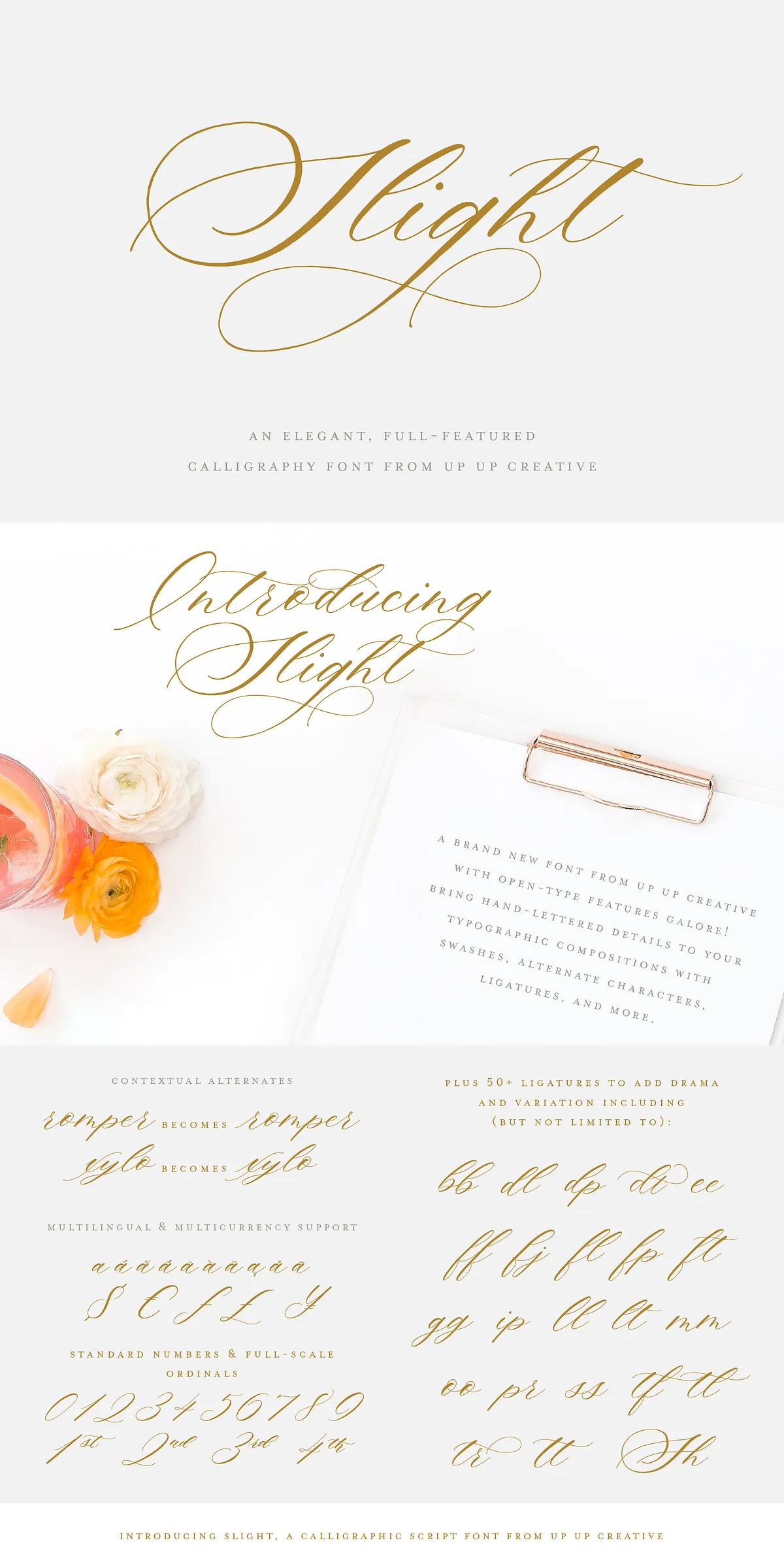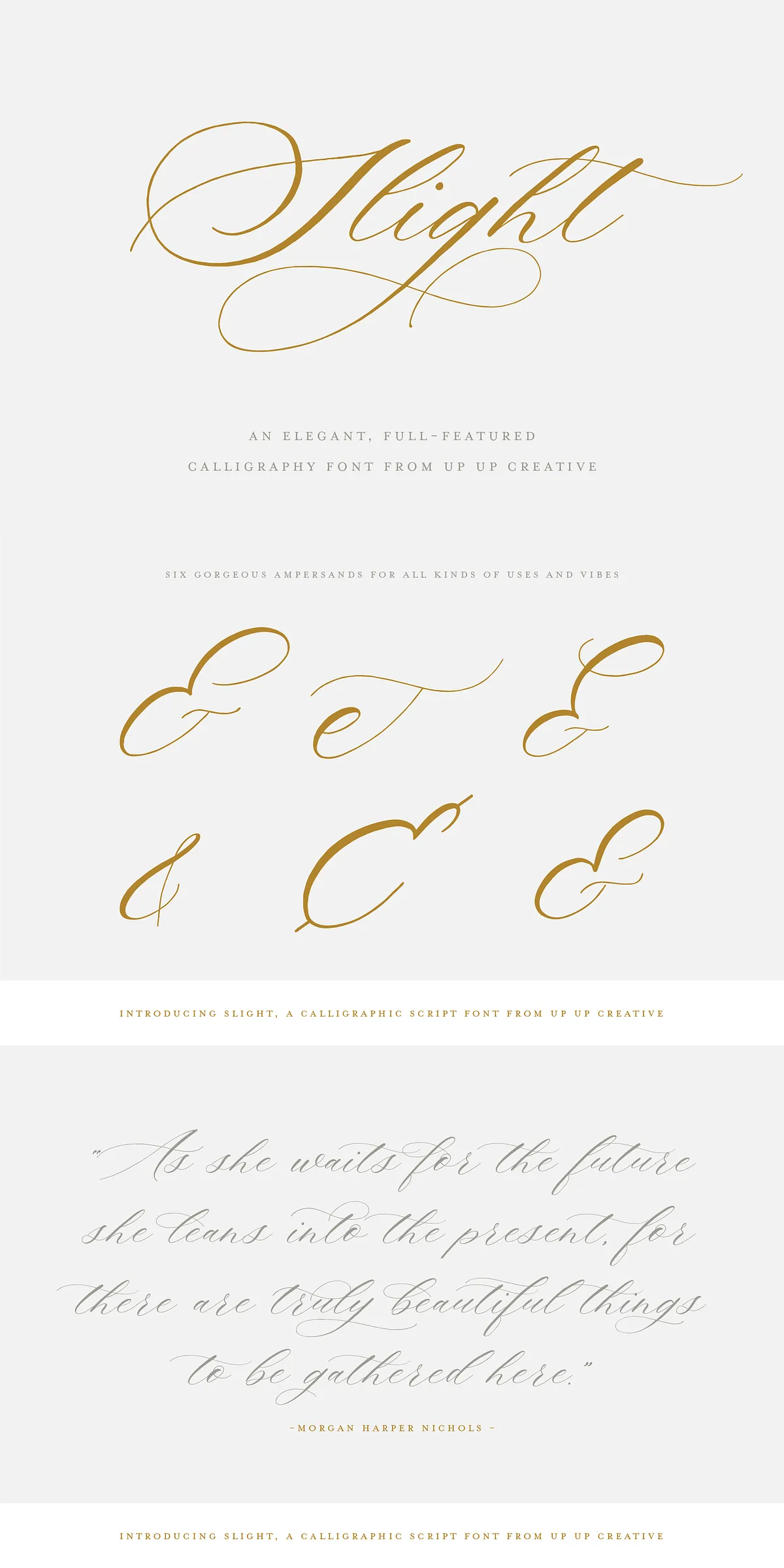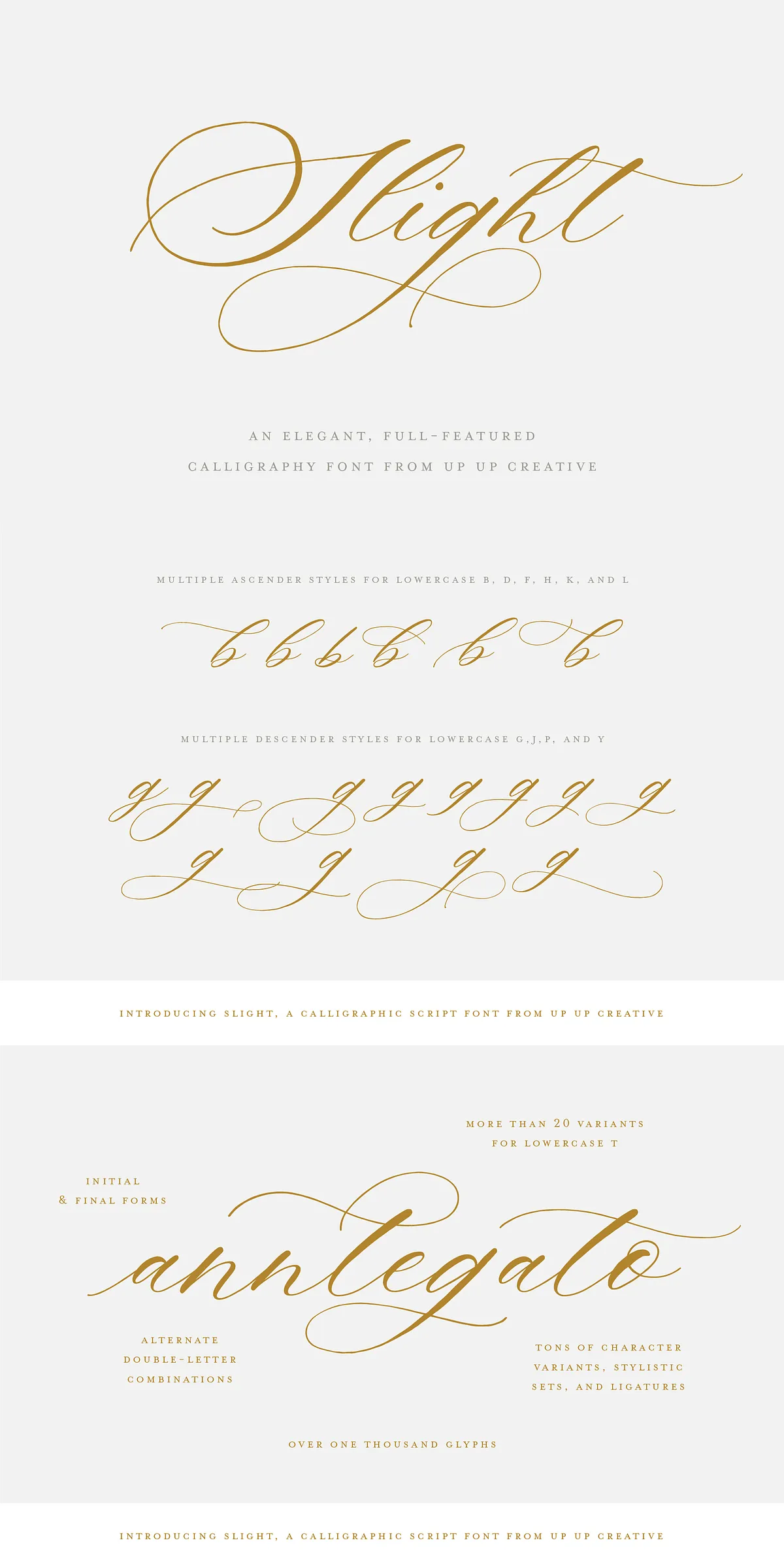
Unlock the power of creative expression with Slight, a bold, full-featured script font that brings hand-crafted artistry to digital design. With a dramatic right slant and fluid motion, Slight captures the authentic rhythm of brushstrokes, making it ideal for designers who demand both elegance and personality in their work. Whether you’re crafting one-of-a-kind wedding invitations, developing a luxury brand identity, or producing high-impact editorial spreads, Slight delivers visual dynamism and emotional resonance with every character.
Unleash 1,000+ Glyphs and Infinite Design Possibilities
Slight isn’t just a font—it’s a typography playground. Packed with more than 1,000 glyphs, it offers unprecedented creative freedom. From subtle variations to dramatic flourishes, every letter is designed to inspire unique compositions. Access a wealth of stylistic and contextual alternates, initial and final forms, multi-directional swashes, and multiple versions of ascending and descending characters. This means you can effortlessly create visually rich layouts that feel hand-crafted, organic, and entirely original.
- 100+ alternate characters — Swap in unique glyph variations with a single click for infinite creative texture.
- Contextual alternates — Let the font adapt dynamically based on surrounding characters for natural, flowing text.
- Stylistic sets & ligatures — Create seamless, connected lettering with elegant compound forms that enhance readability and aesthetic harmony.
- Six distinct ampersand styles — Choose the perfect ‘&’ for your layout—from delicate loops to bold, architectural forms.
- Full multilingual support — Includes multiple currency symbols and extended Latin character sets for international projects.
- Standard and stylistic numbers — Mix in decorative numerals that match the font’s expressive tone.
Design with Purpose. Stand Out with Style.
Slight isn’t for everyone. It’s for designers who are ready to break the mold. It’s for those who believe typography should feel alive, expressive, and deeply intentional. From the moment you install Slight, your designs will gain texture, rhythm, and character—transforming ordinary text into memorable visual stories.
Perfect For:
- Wedding & event invitations — Create timeless, elegant stationery that reflects the emotion of the moment.
- Brand identity & logo design — Build distinctive visual systems that feel authentic and human.
- Editorial layouts & magazine design — Add personality to headlines, pull quotes, and featured text.
- High-end packaging and product labeling — Elevate luxury goods with expressive, handcrafted typography.
- Art prints & digital illustrations — Let Slight bring motion and life to your creative expressions.